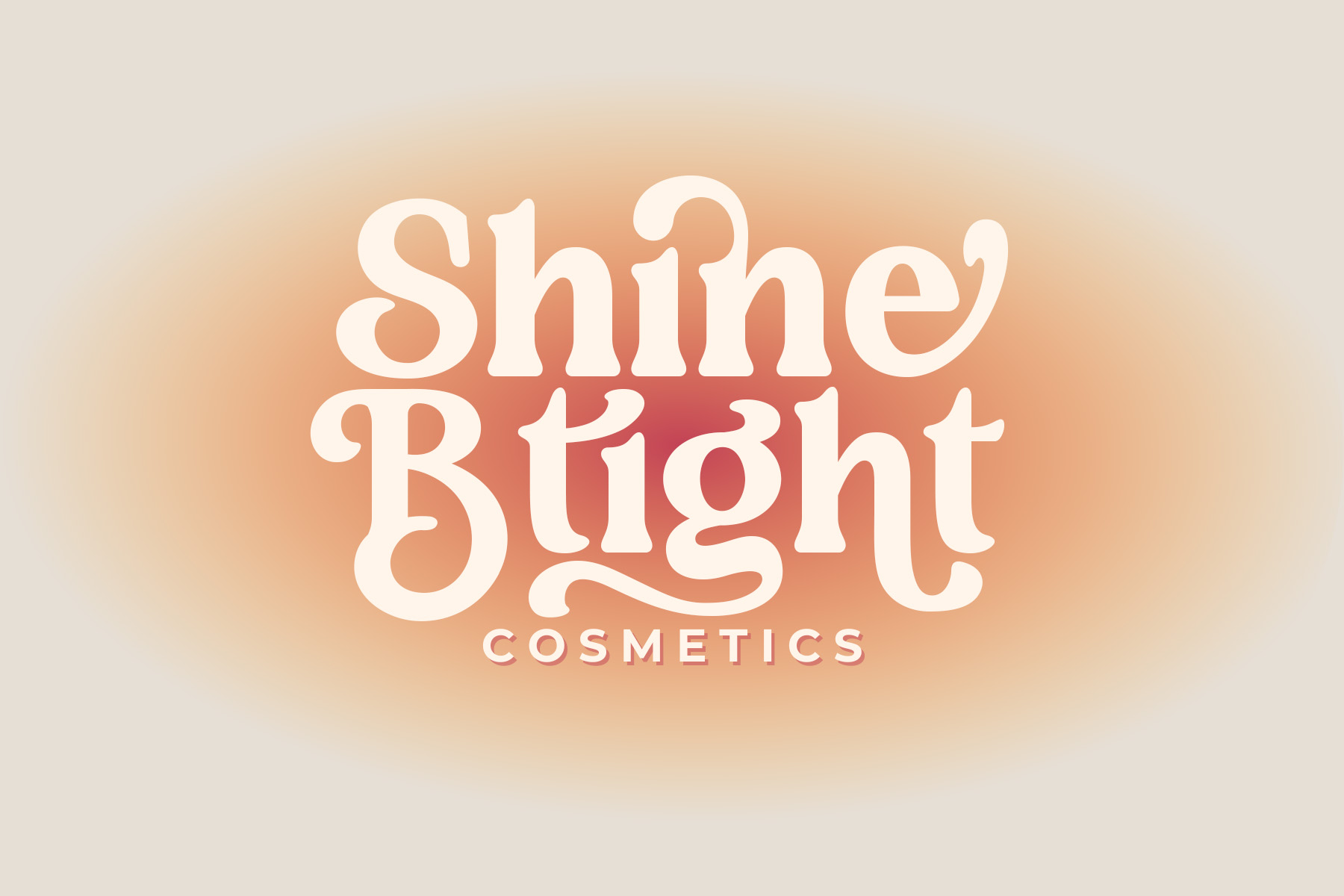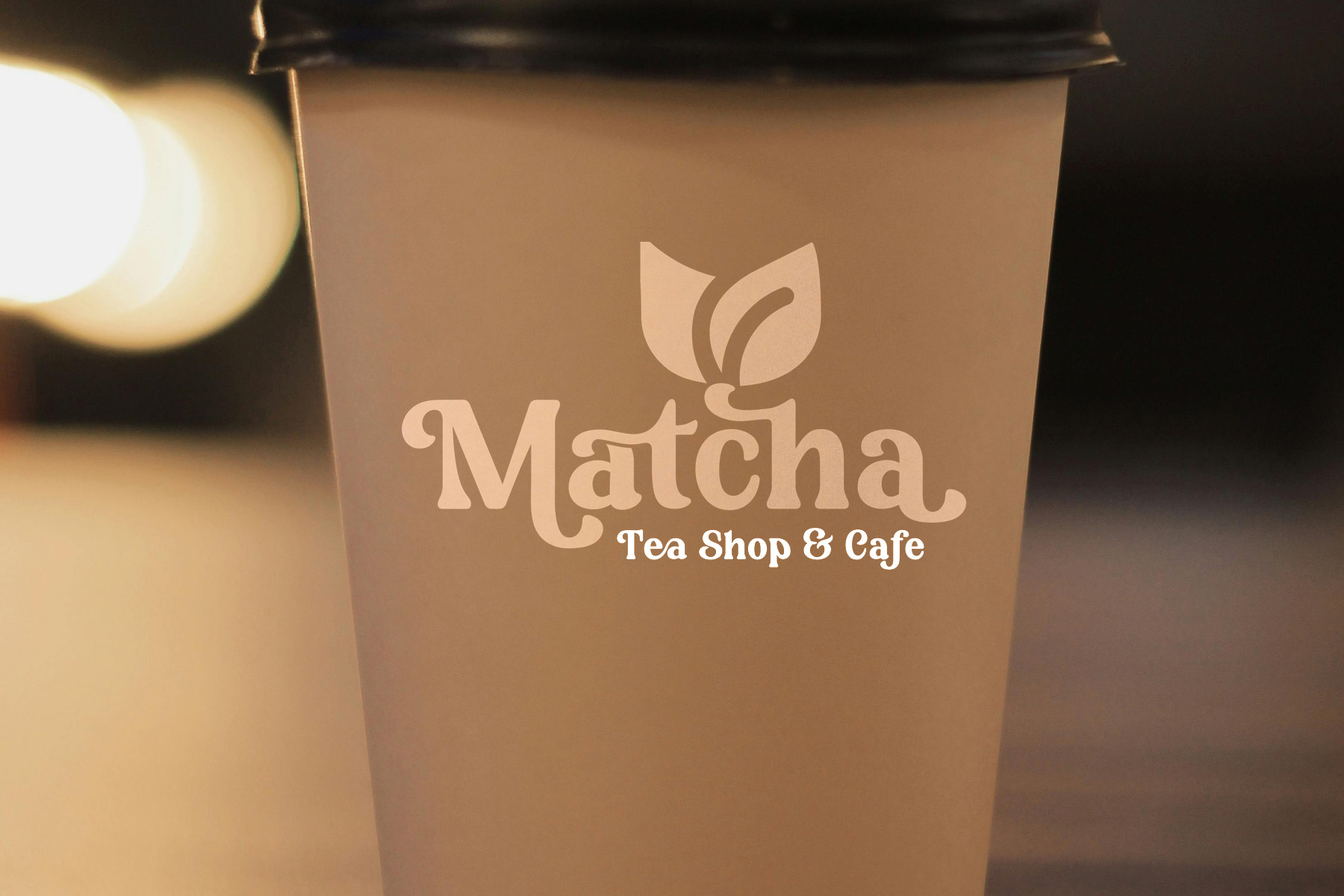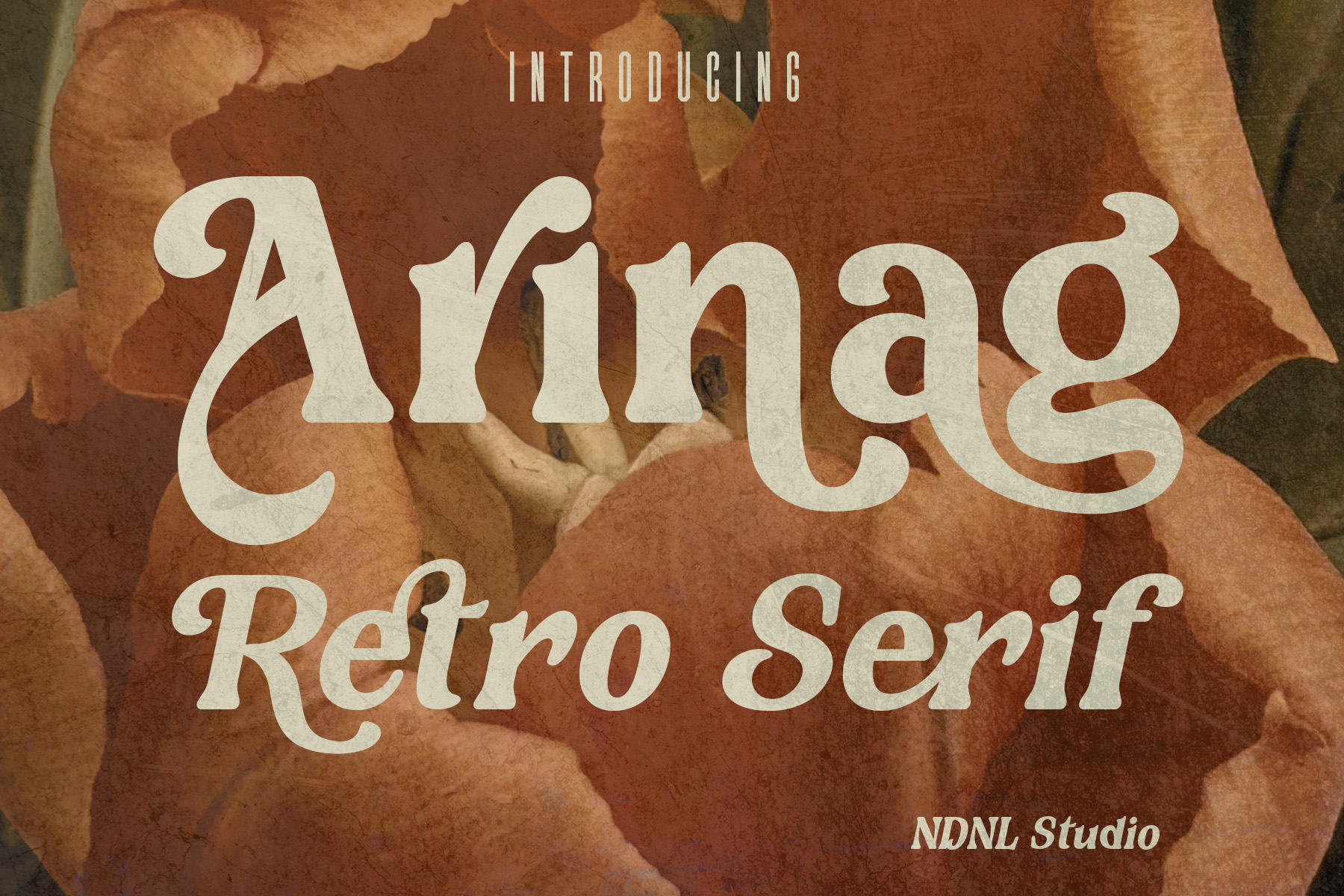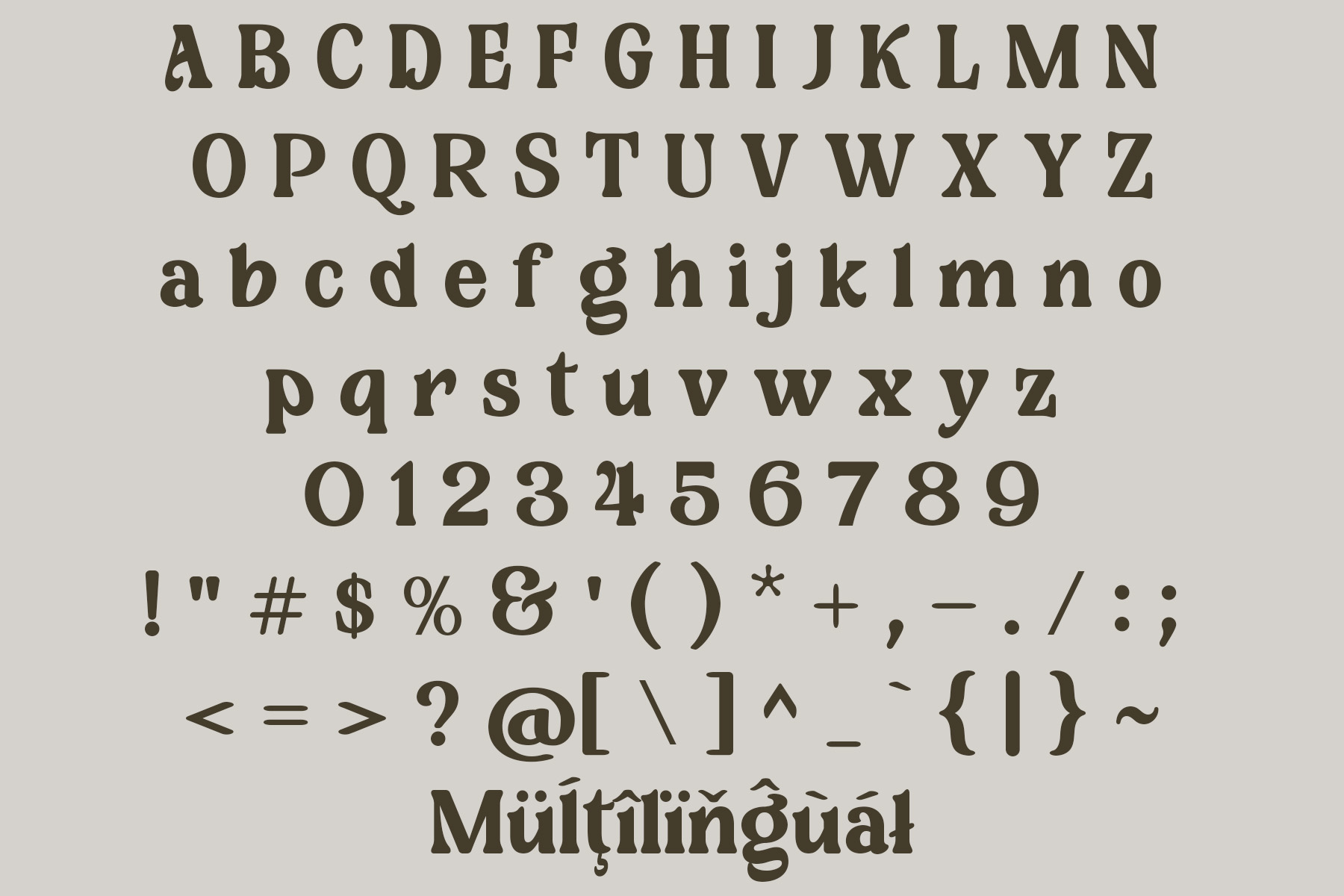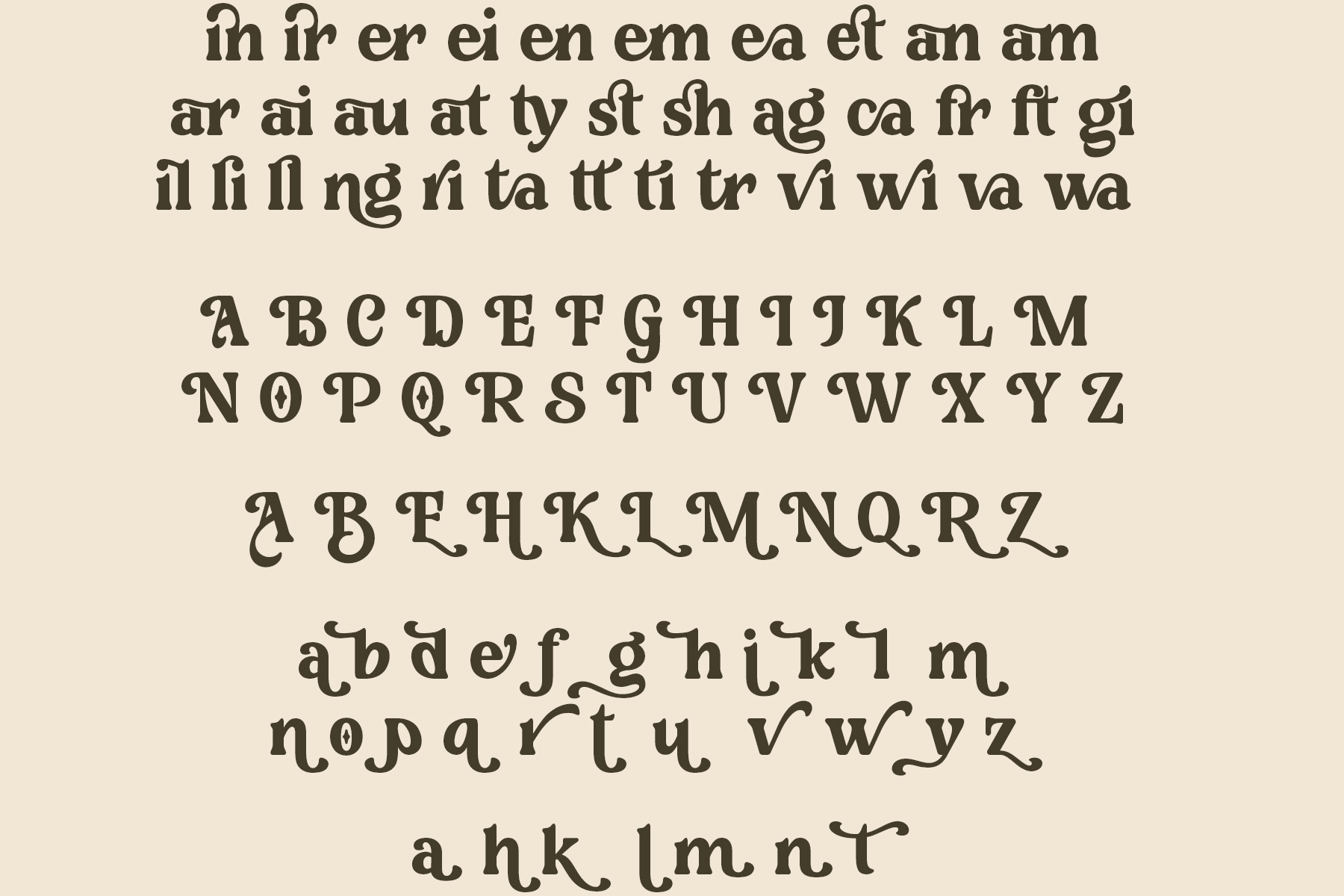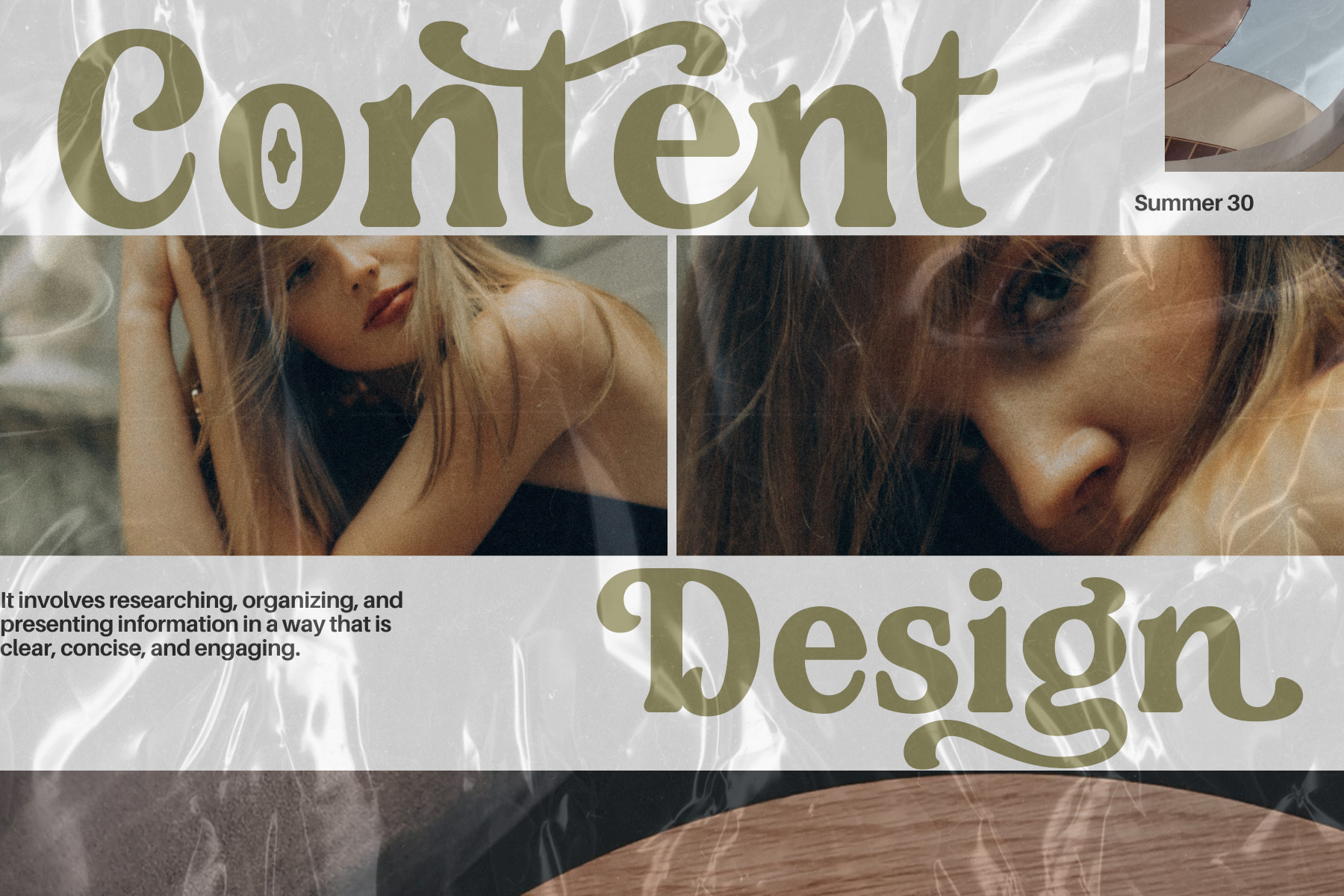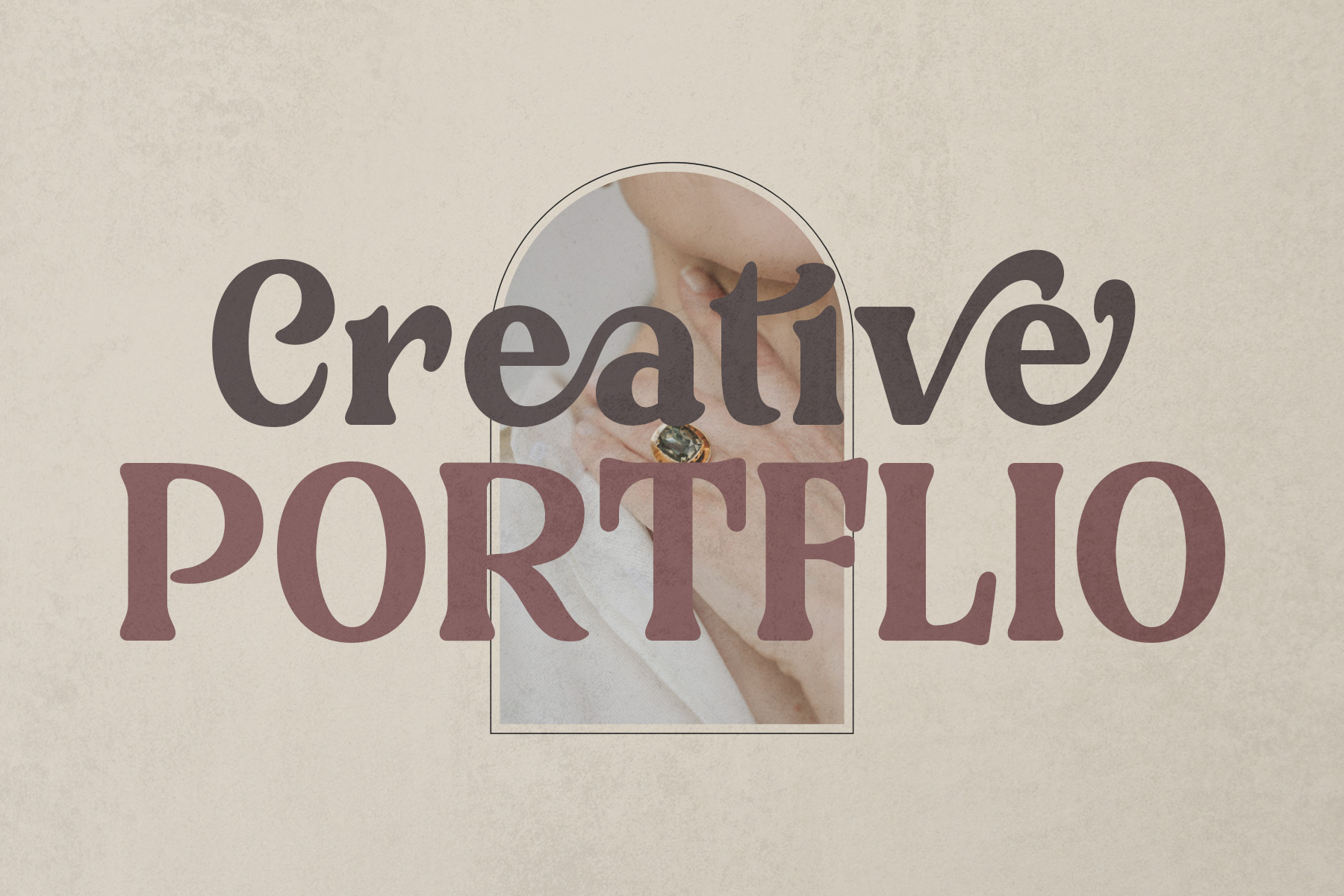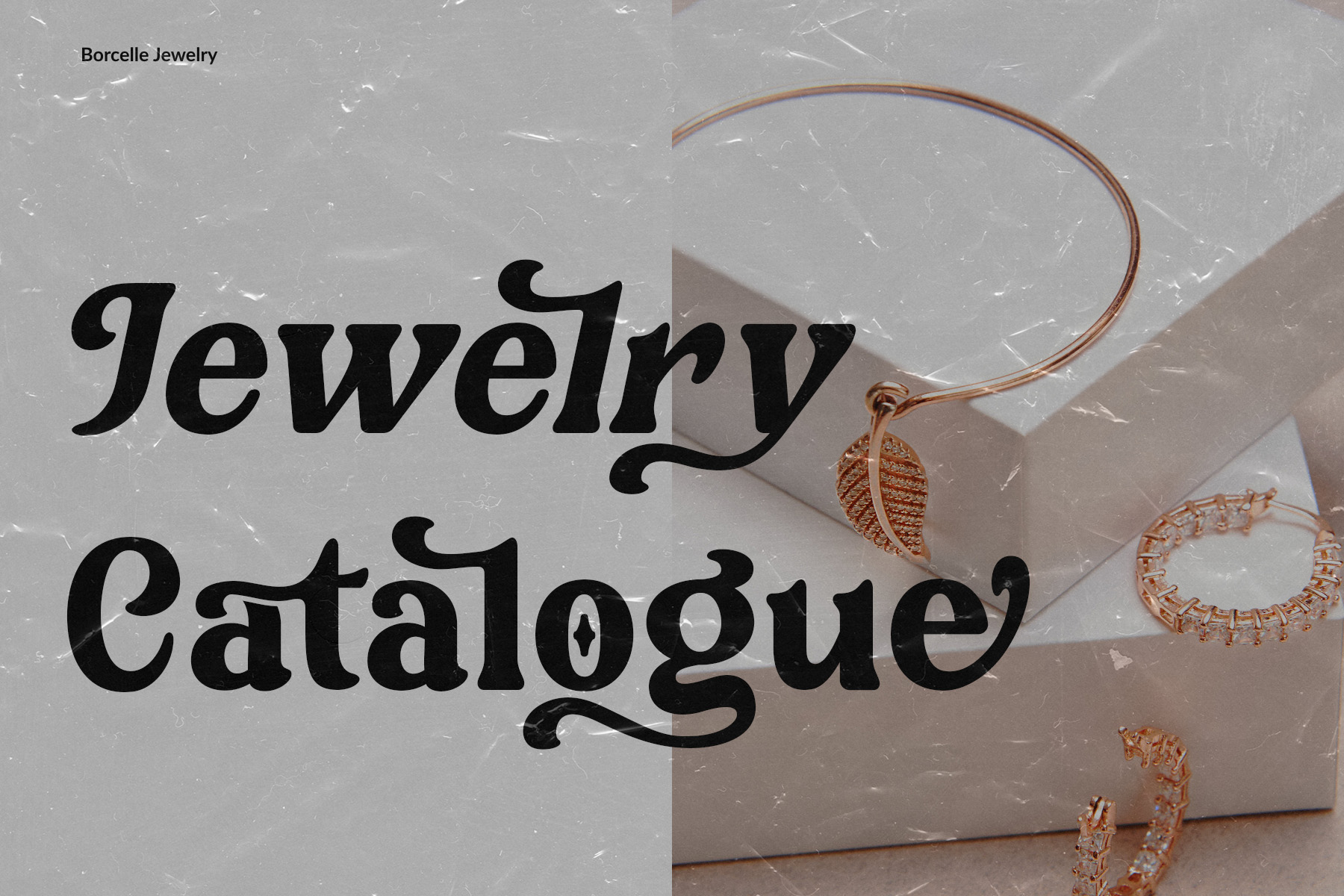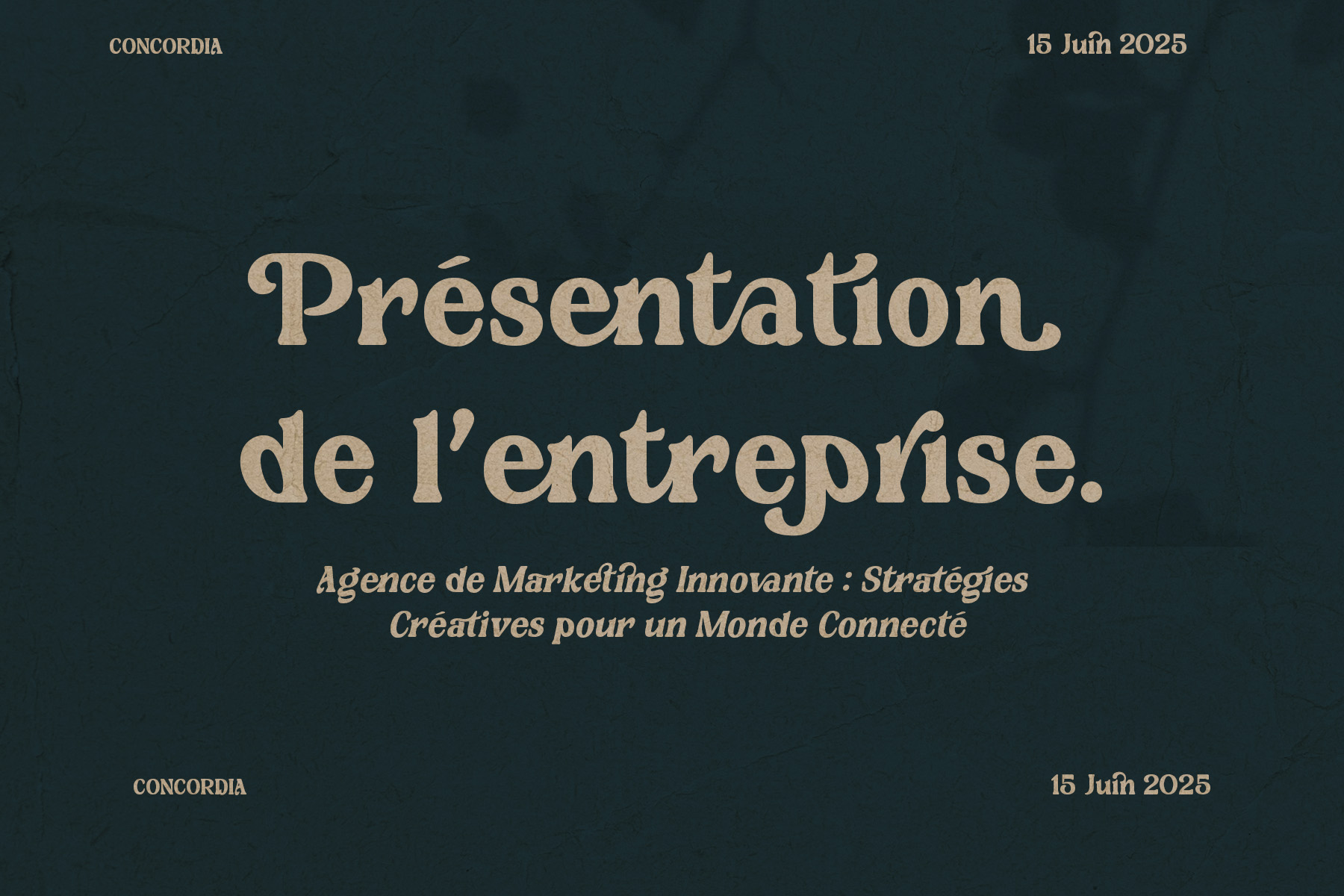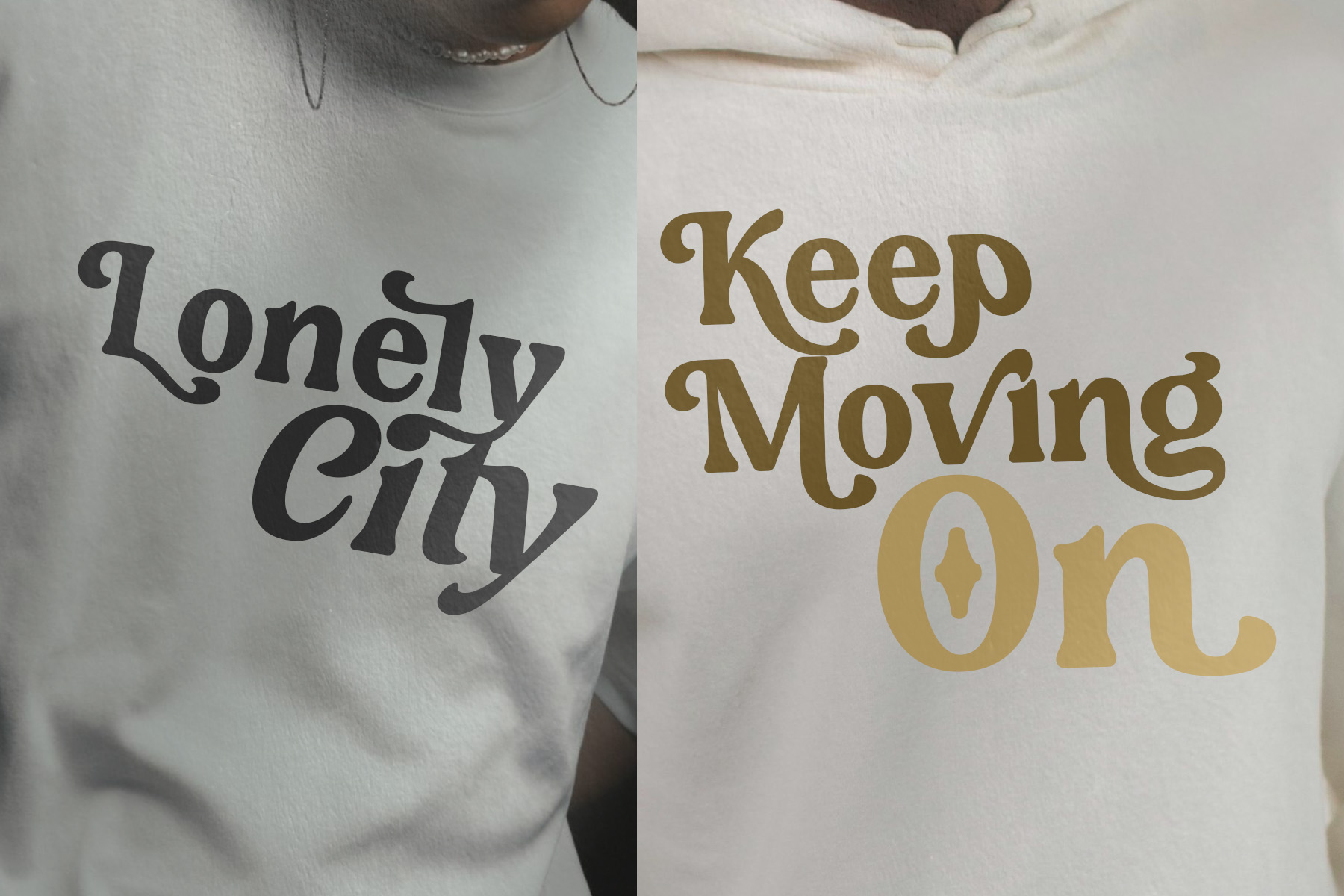
Introducing Arinag!
Arinag is a retro-inspired serif typeface that blends classic charm with a refined modern touch. Featuring soft curves, bold serifs, and distinctive rounded details, it delivers a warm, nostalgic feel while remaining visually engaging.
Each letter carries a unique personality — balancing strength and elegance — making your designs stand out with depth and character. Arinag is perfect for a wide range of creative projects including logos, branding, packaging, posters, editorial headlines, and vintage-style designs.